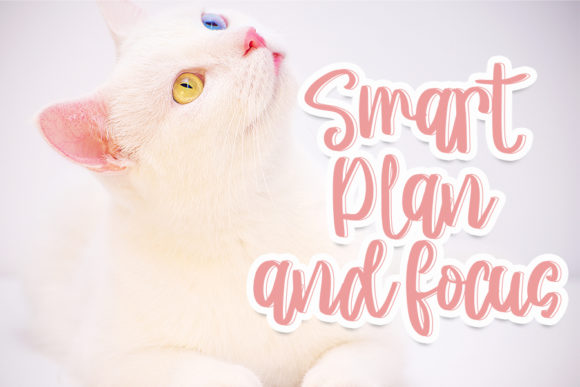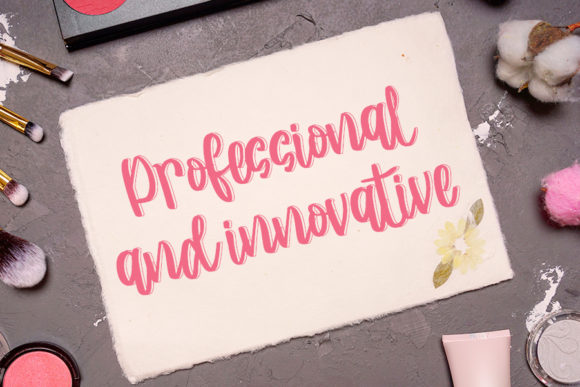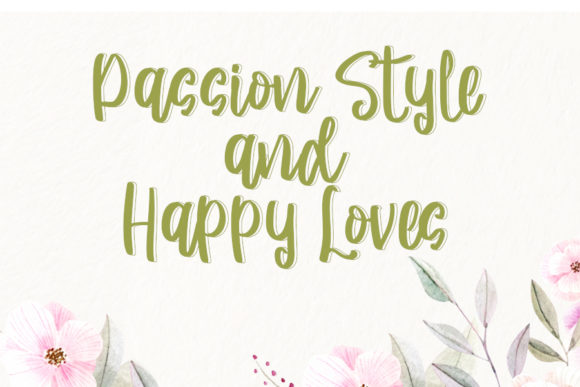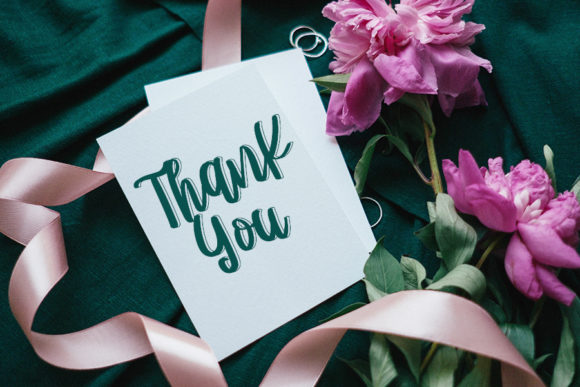
Happy New Year Font
About Happy New Year Font
Happy New Year is a delightful and trendy handwritten font that exudes a sense of joy and excitement, making it perfect for a wide range of creative projects. Here are some ideas on how to use Happy New Year font to add a touch of cuteness and style to your designs:
1. New Year Greeting Cards: Create adorable and personalized New Year greeting cards using Happy New Year font, perfect for sending warm wishes to friends and family.
2. New Year Party Invitations: Design fun and festive party invitations with Happy New Year font, setting the tone for a joyful celebration.
3. New Year Social Media Graphics: Infuse your social media posts with a touch of cuteness using Happy New Year font in captions, quotes, and overlays.
4. New Year Resolutions: Make your New Year’s resolutions stand out by using Happy New Year font in graphics or planner layouts.
5. New Year Quotes: Showcase inspiring and motivational New Year quotes with Happy New Year font, adding a trendy and playful element to your designs.
6. New Year Presentations: Elevate your presentations with Happy New Year font, making them more engaging and visually appealing.
7. New Year Apparel: Design trendy and stylish apparel with Happy New Year font, perfect for celebrating the start of a new year.
8. New Year Blog Graphics: Enhance your blog graphics for New Year-themed posts with Happy New Year font, making your content more inviting and eye-catching.
9. New Year Wall Art: Create charming and adorable wall art with Happy New Year font, adding a touch of cuteness to your home decor.
10. New Year DIY Crafts: Use Happy New Year font for crafting projects, such as creating custom stickers, labels, and tags for New Year-themed gifts and party favors.
In summary, Happy New Year is a versatile and adorable handwritten font that can bring a sense of happiness and cheer to your designs. Whether it’s for digital content, crafting, or celebrations, Happy New Year font adds a touch of cuteness and style to any project. Embrace the spirit of the New Year and let Happy New Year font enhance your creative endeavors with its simple, cute, and trendy charm.